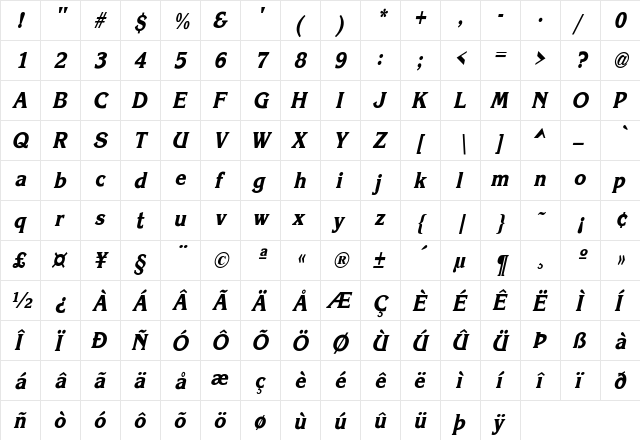
Korinna-ExtraBold Thin Italic
Design Context for Korinna-ExtraBold Thin Typeface
Korinna-ExtraBold Thin takes a measured approach to typography — its balanced proportions and neutral character make it a reliable workhorse for both digital and print work. The slanted form adds forward momentum and visual energy. Its bold stroke weight gives it real presence on the page.
Pro Tip: Use Korinna-ExtraBold Thin for emphasis, pull quotes, and subheadings where its slanted energy can add rhythm to the layout.